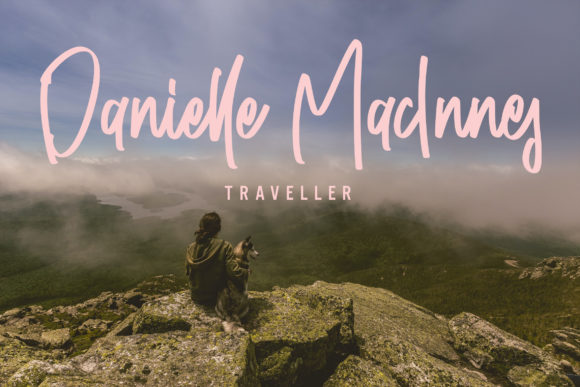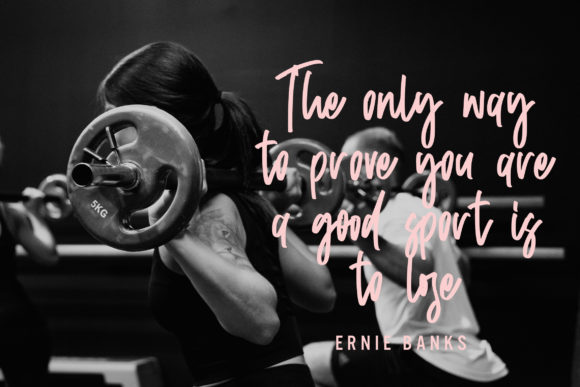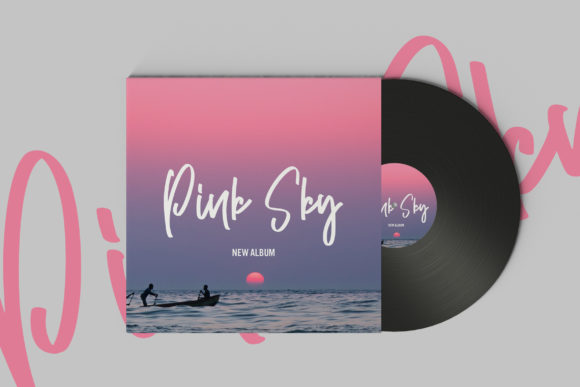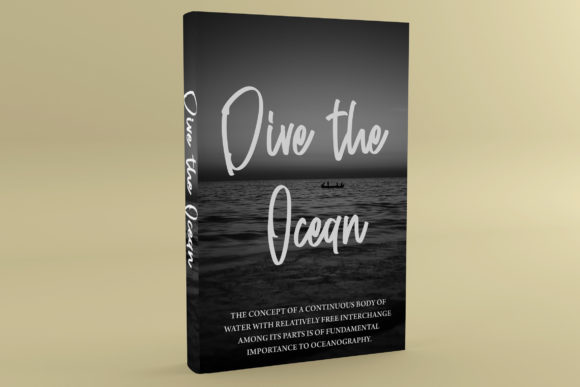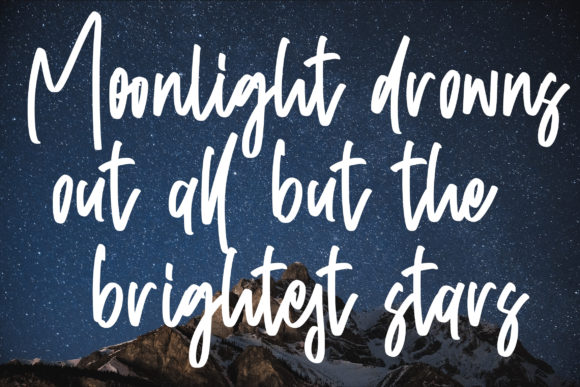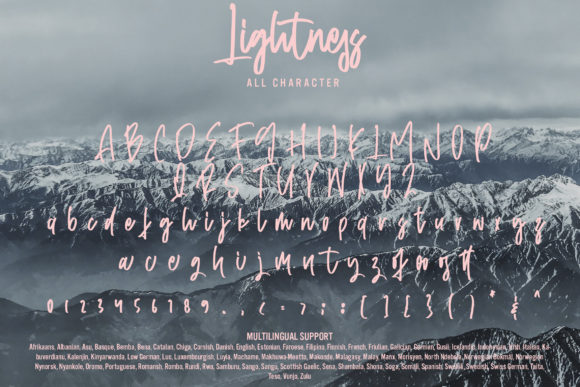
Lightness Font
About Lightness Font
Lightness is a cursive and luxurious script font that exudes elegance and class. This font was particularly crafted for those who need a beautiful and refreshing look to their designs.